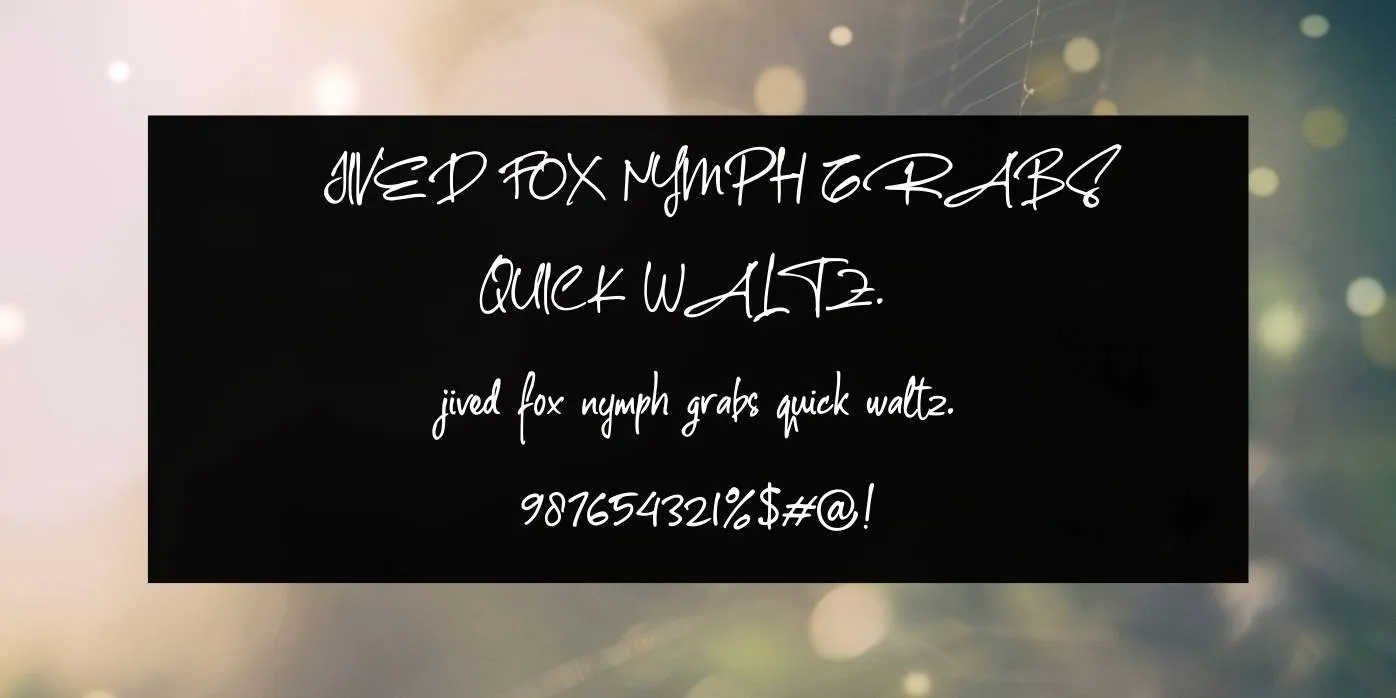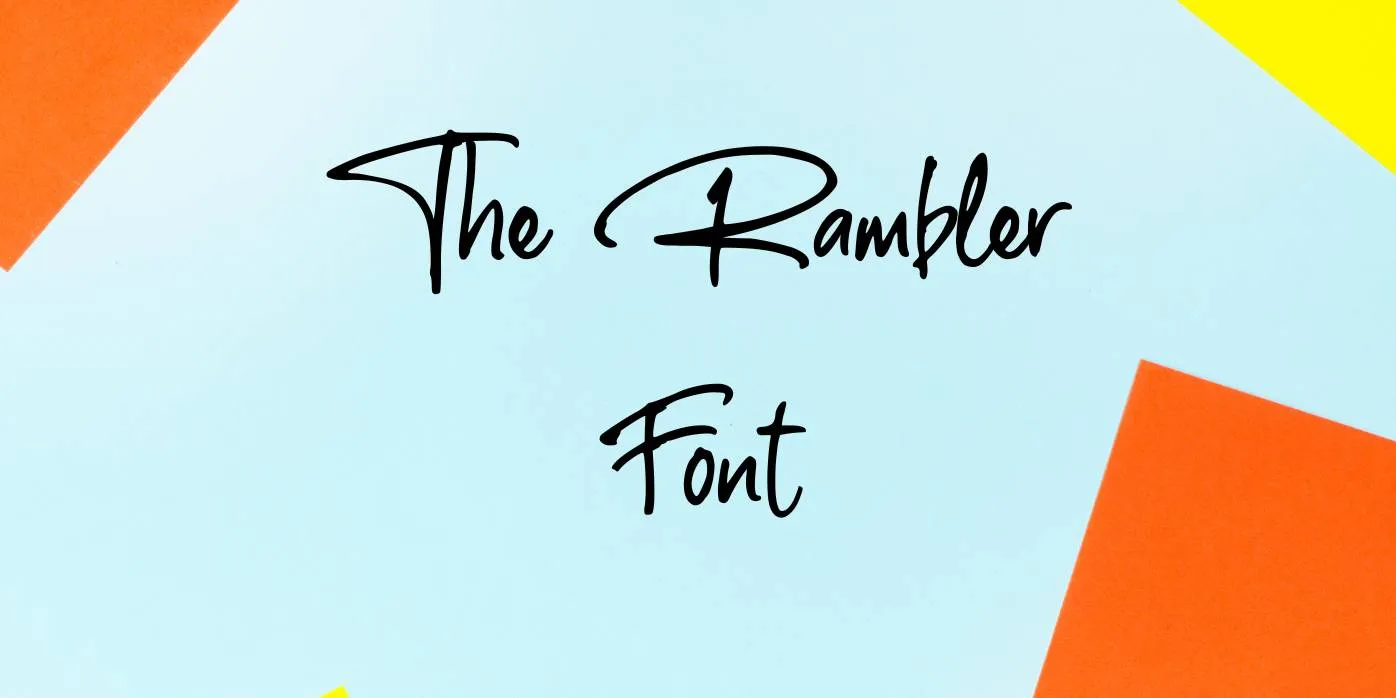
The Rambler Font
The Rambler Font was designed by the Kong Font. The characters of this typeface are stylish, thin, and interconnected to each other. If you are interested to reading more about the font, then keep scrolling. This font texture has also many similar fonts that are good for pairing with this texture.